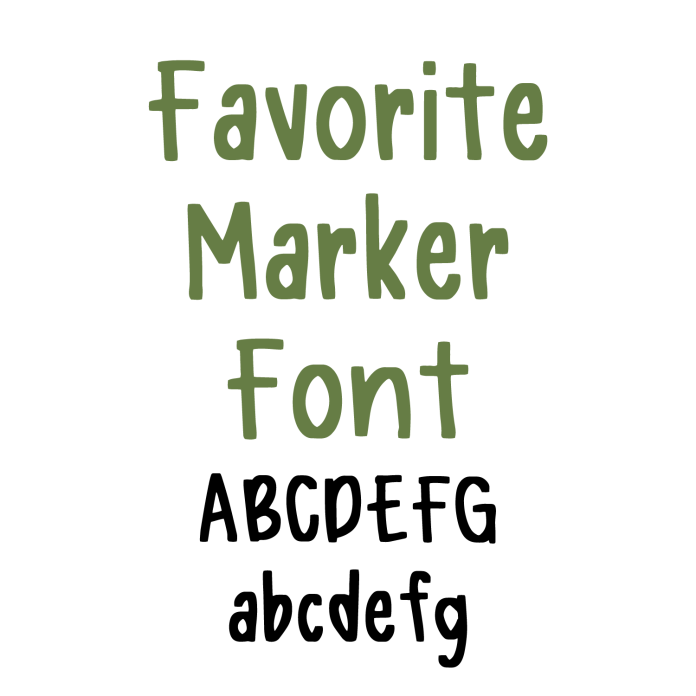
Meet Favorite Marker Font—a bold and playful sans serif font that brings a hand-drawn, marker-style vibe to all your crafting projects! With its clean lines and casual feel, this font is perfect for stickers, labels, posters, greeting cards, and home decor signs. Designed to work beautifully with cutting machines, Favorite Marker cuts smoothly and is easy to weed, making it a go-to choice for both beginners and seasoned crafters. Whether you're creating printables, custom gifts, or digital designs, this versatile handwritten sans serif typeface adds energy and personality. Download Favorite Marker Font today and start crafting with flair!